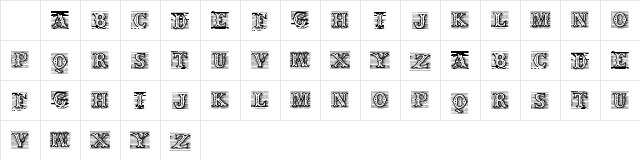
TagWood echoes the hand-painted signage and woodblock typography of the American frontier, with a warm, rugged personality.
Font Pairing: Combine TagWood with a simple slab or neutral sans - period-accurate companions reinforce the vintage feel without competing for attention.
Pro Tip: Use TagWood for short, impactful bursts of text - it shines in poster headlines and product names rather than extended copy.